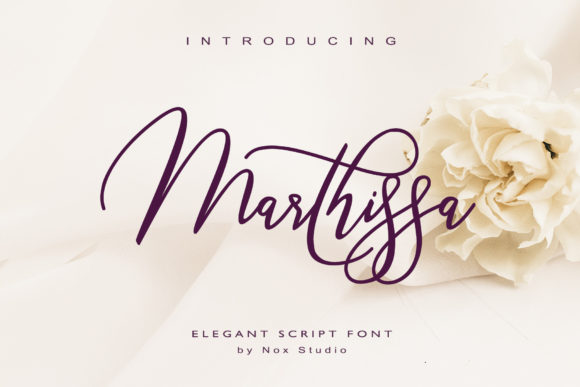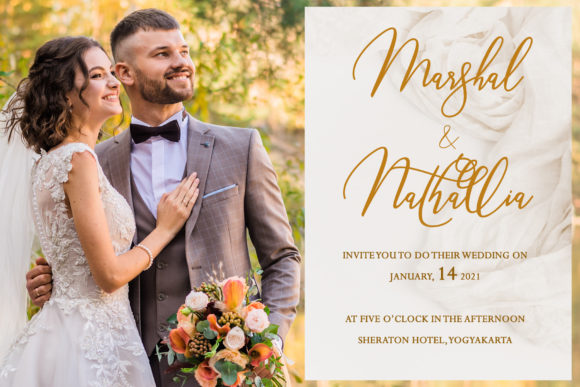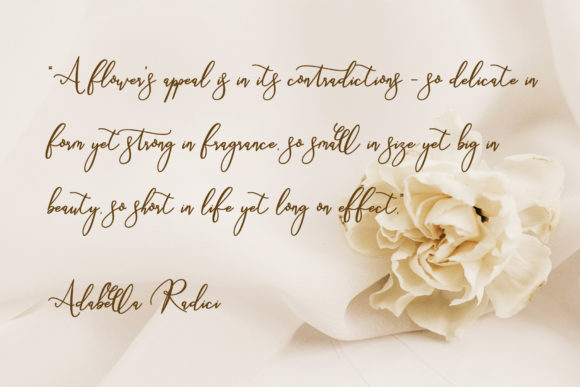
About Marthissa Font
Marthissa is a refined and fashionable handwritten font. This gentle font will look gorgeous on a variety of design ideas. It will add a joyful and romantic touch to each of your projects!